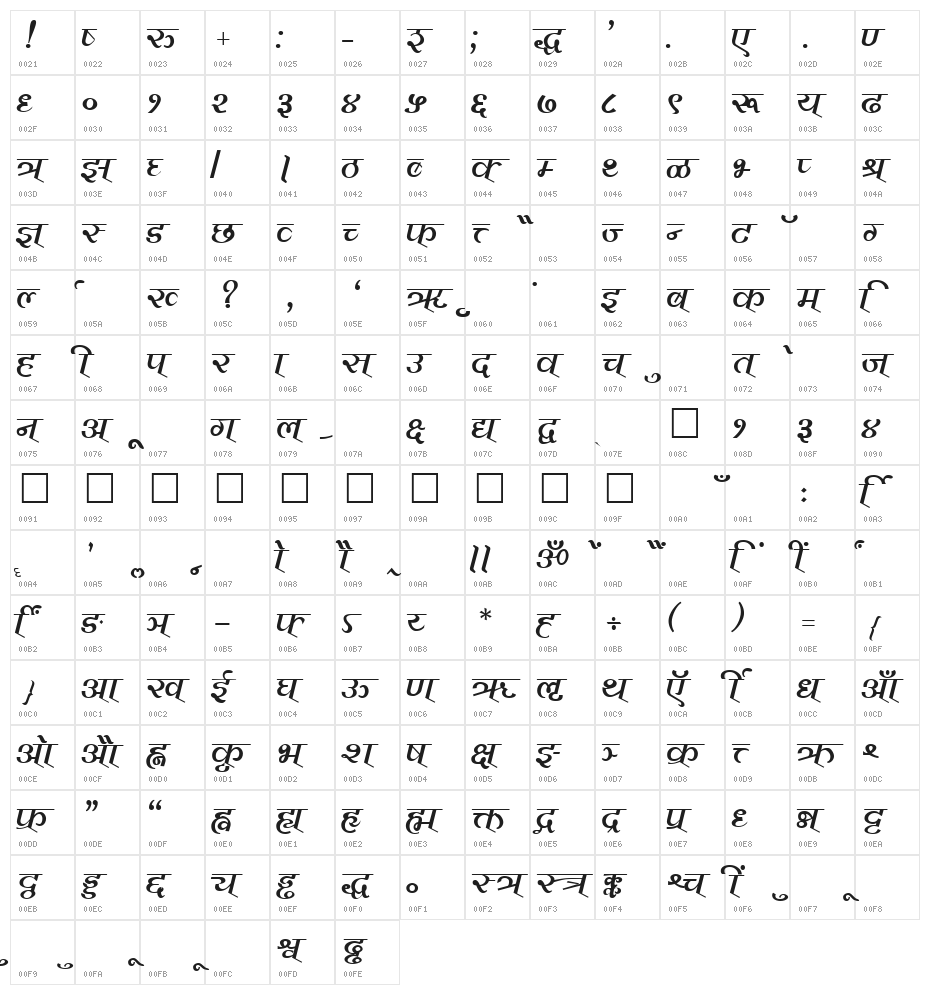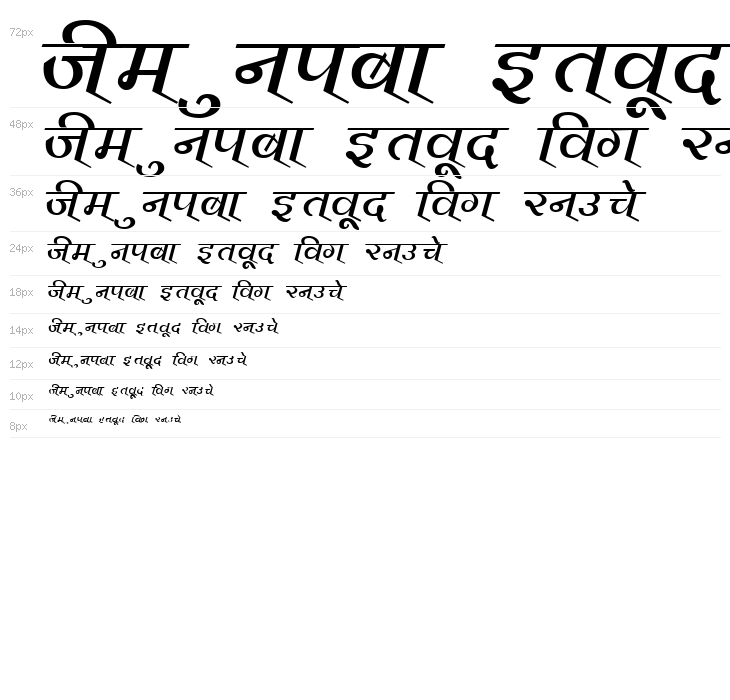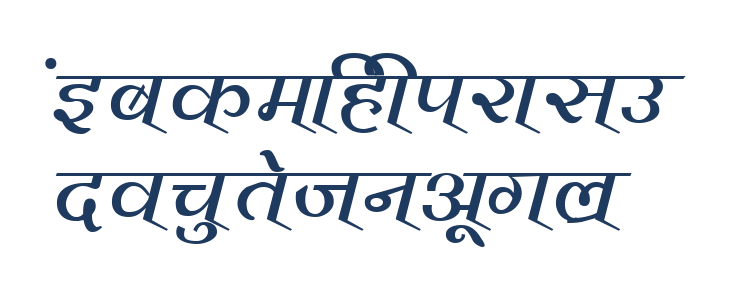
Vimal Font
| Stil general | Traditional |
| Caz de utilizare | Headlines, Body text, Cultural documents |
| Proiecte propuse | Ideal for cultural publications, traditional event invitations, and educational materials in Hindi or Marathi. |